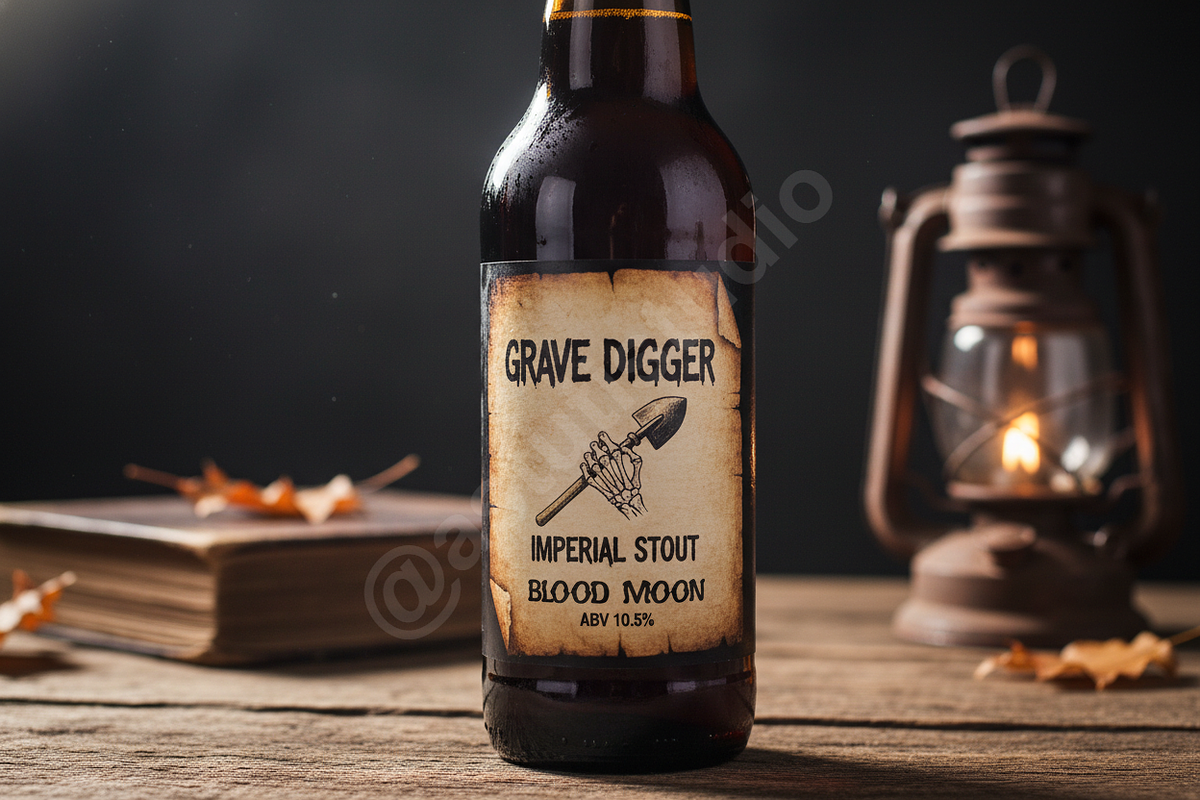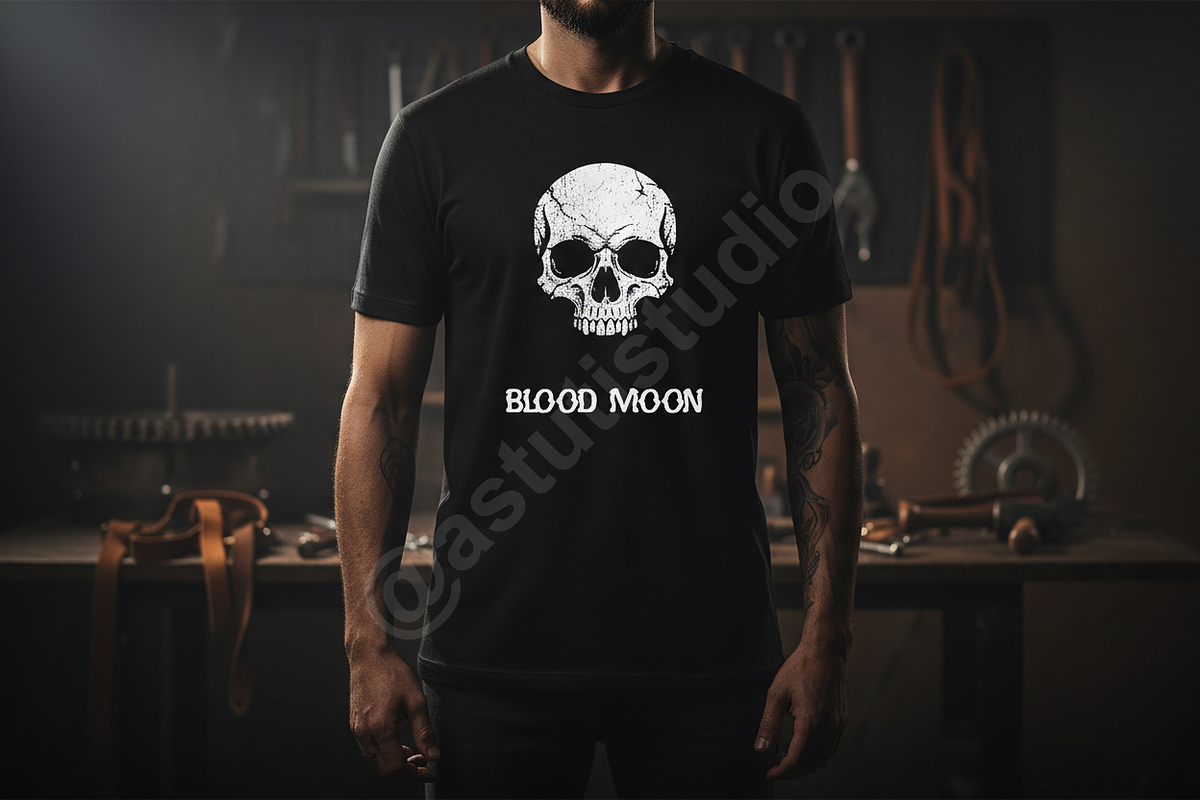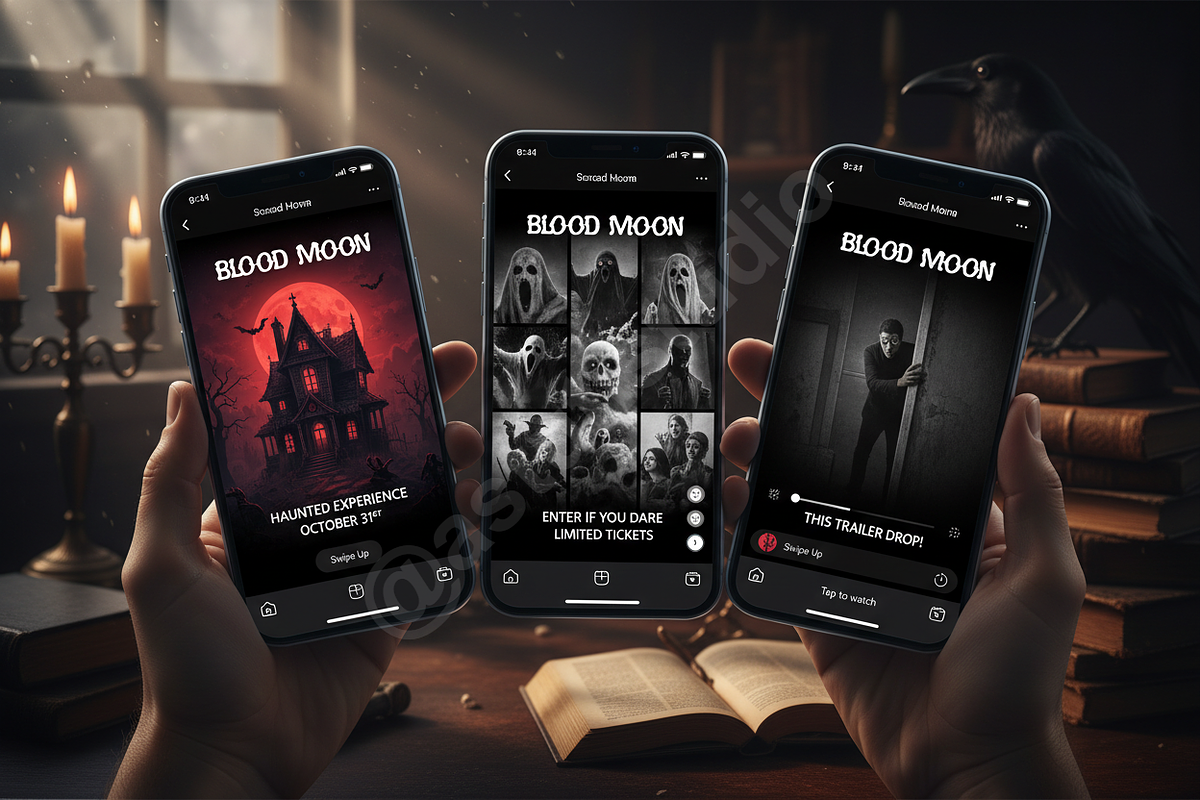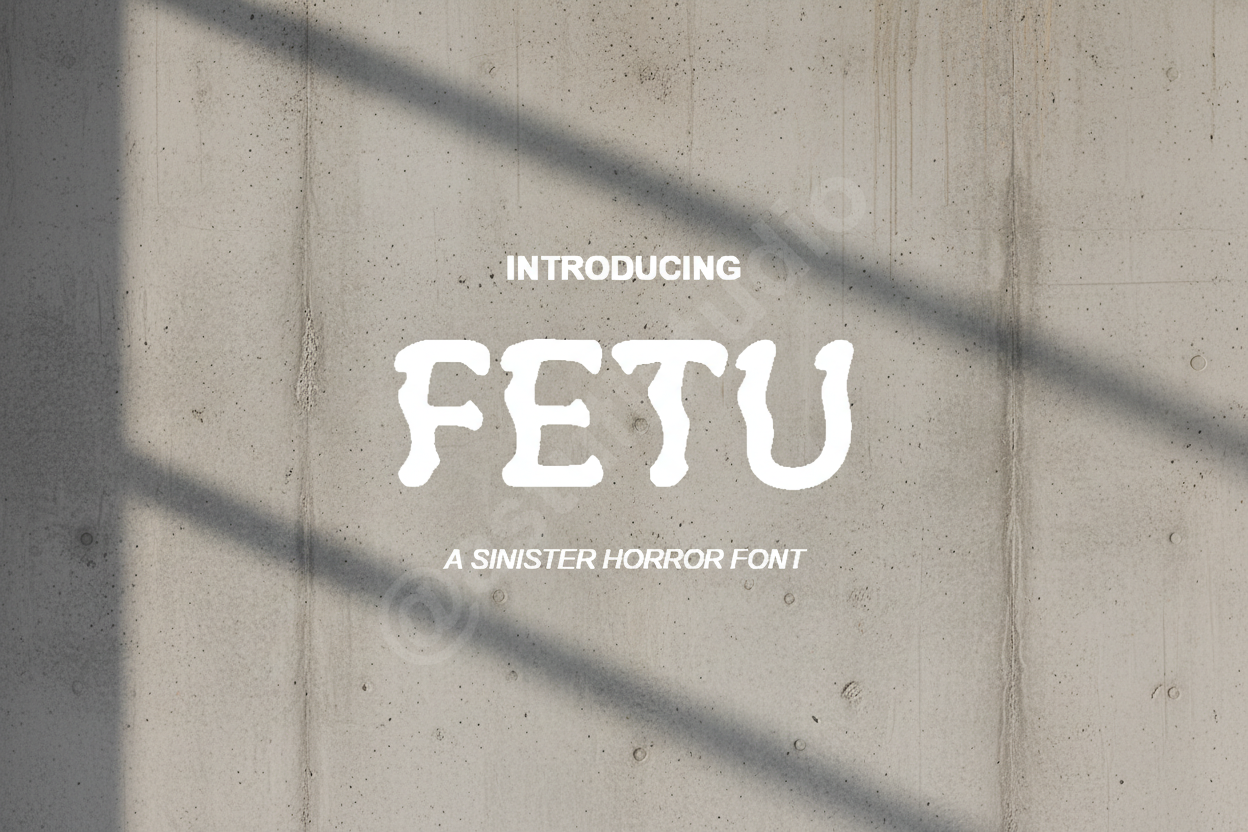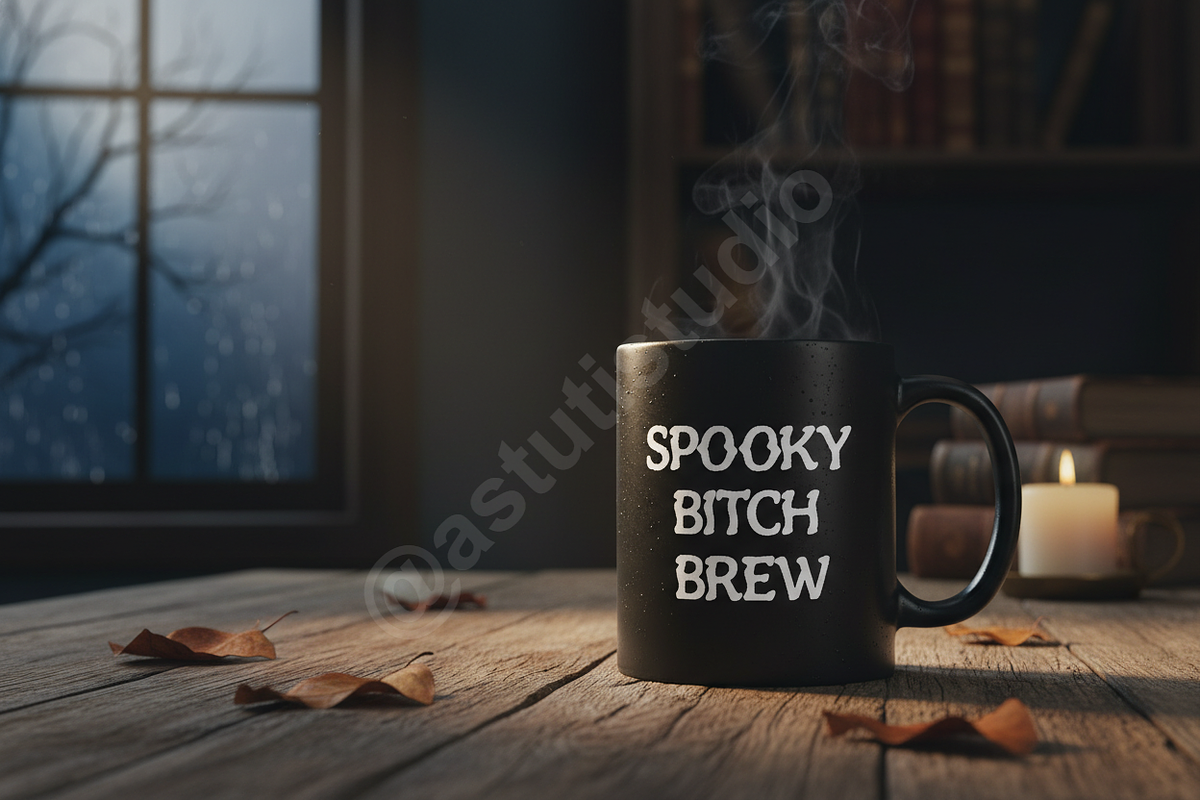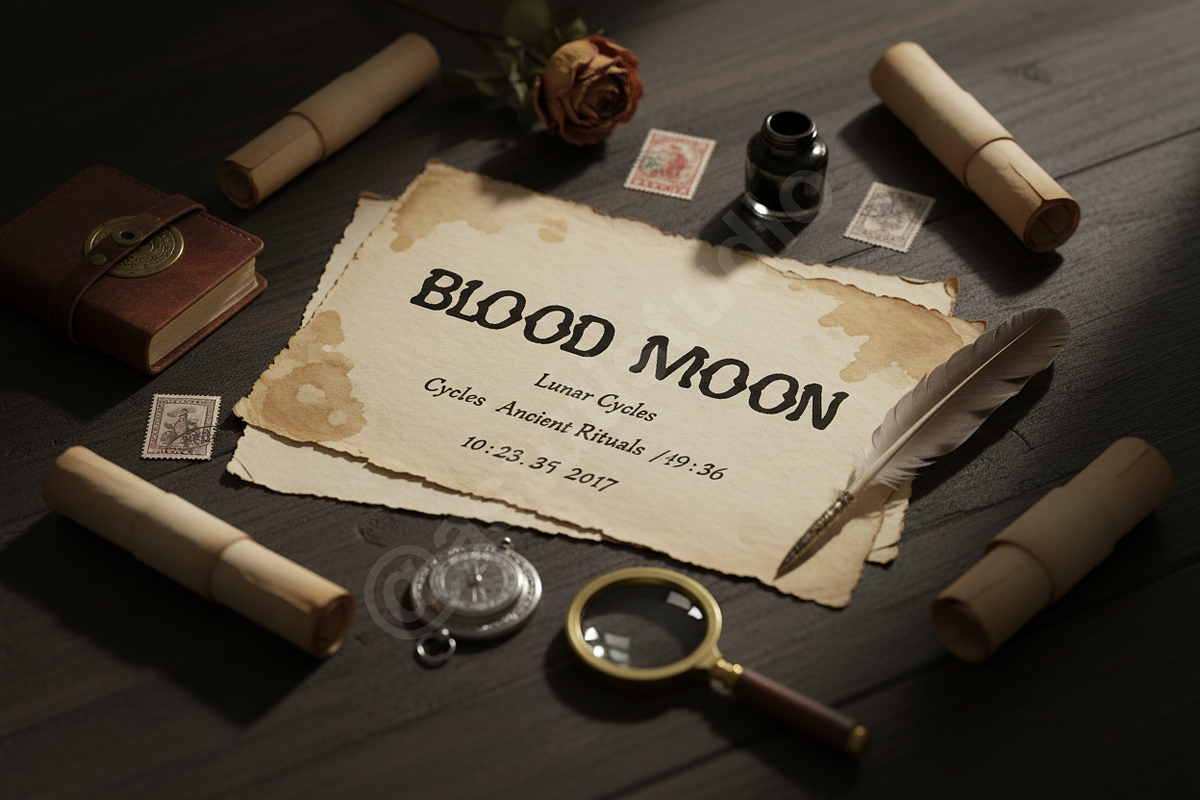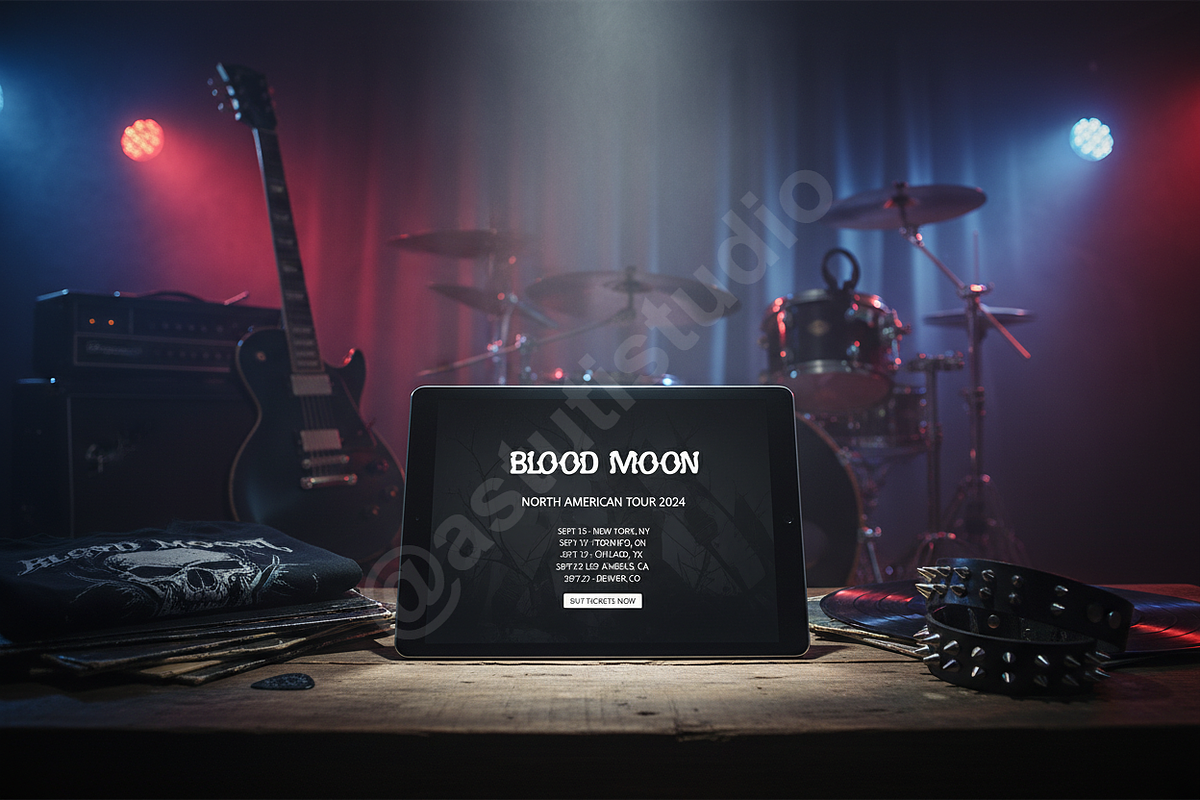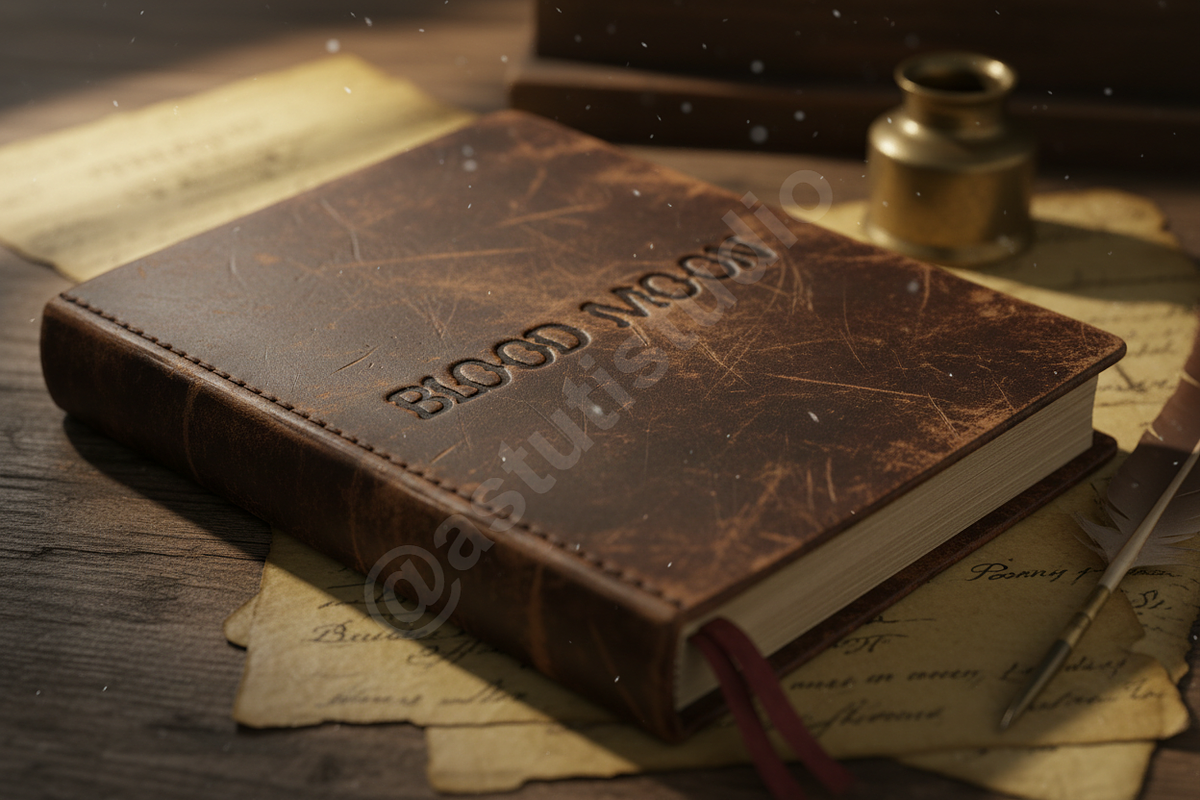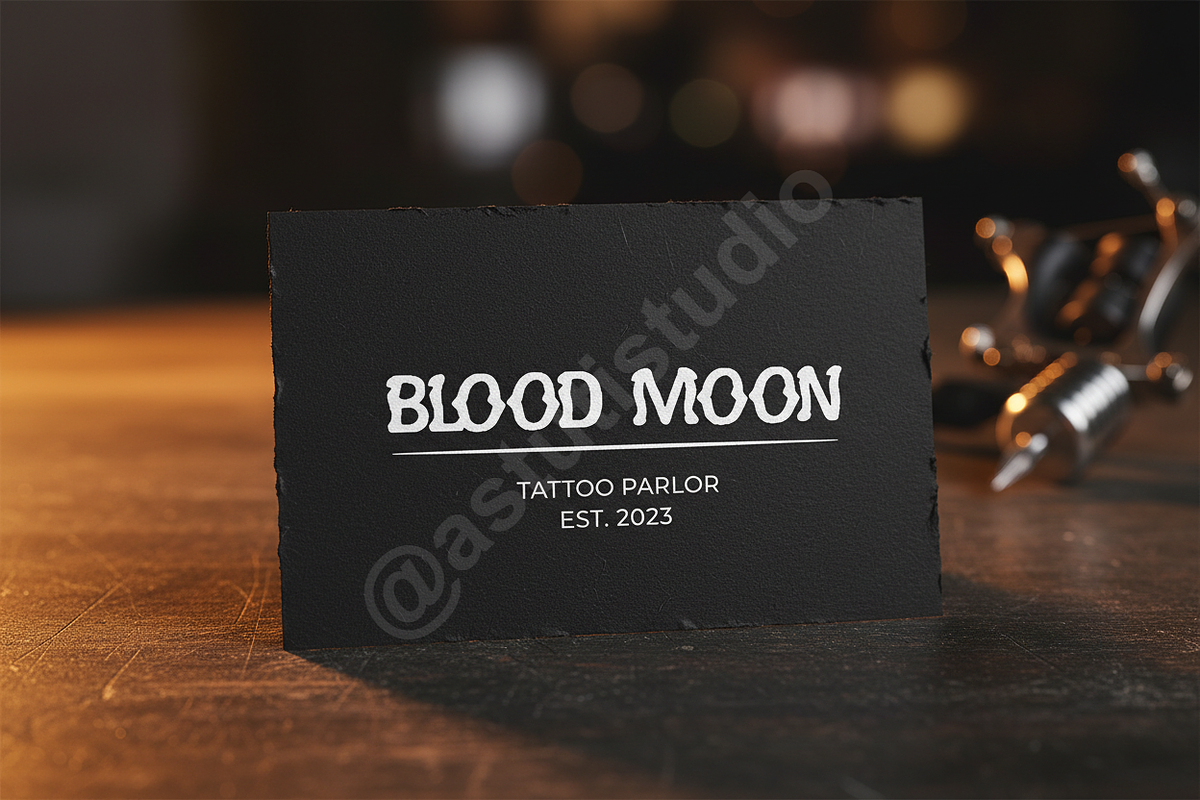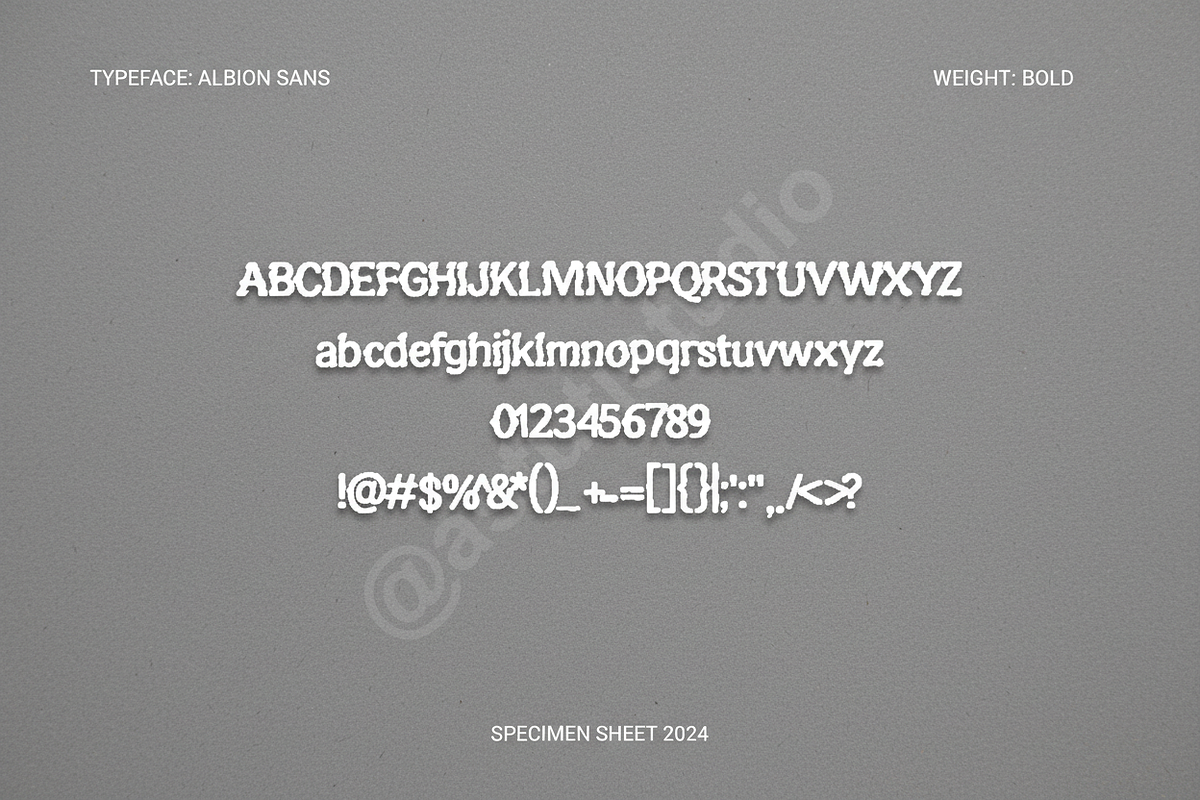
Fetu | Elegant Luxury Serif Typeface
Introduction:
"Fetu" is an exquisitely crafted serif typeface designed to elevate your design projects with undeniable sophistication. Balancing classic structure with modern refinement, Fetu embodies the spirit of high-end aesthetics, making it the definitive choice for luxury branding, crucial editorial layouts, and impactful social media campaigns. Fetu provides the polished, premium foundation your studio work demands.
- Luxury Aesthetic: High contrast strokes and sharp, refined terminals create an elegant visual rhythm.
- Versatility: Perfect for impactful headlines, magazine titles, high-end packaging, and delicate body text.
- Extensive Language Support: Includes full multilingual characters for global branding reach (Western and Central European languages).
- Full Punctuation & Numerals: A comprehensive character set designed for complex and professional editorial use.
- OpenType Features: Includes essential standard ligatures and useful stylistic alternates for truly customizable typography.
- Optimized for Web & Print: Perfectly rendered at grand display sizes and functional in smaller contexts.
- Complete set of uppercase, lowercase letters, numbers, and symbols.